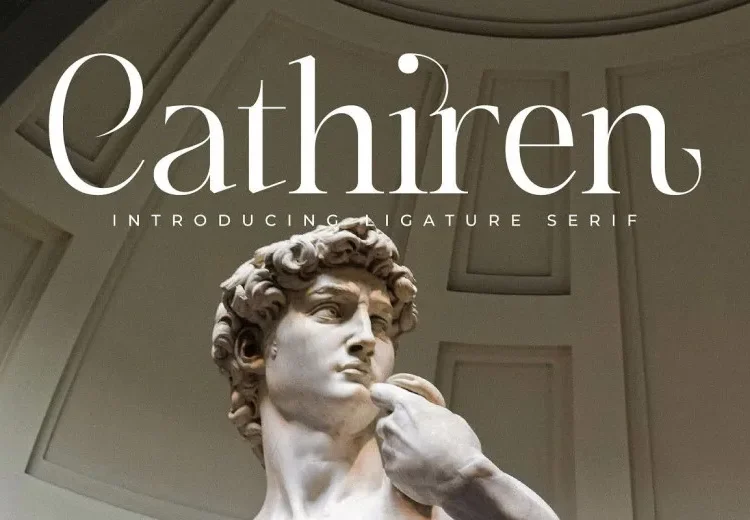
Cathiren Font
Cathiren is a stunning serif typeface that blends timeless elegance with a modern aesthetic, making it the perfect choice for a variety of design projects. Its clean lines and distinctive style make it ideal for logo designs, book or film titles, fashion branding, magazine lettering, and even inspirational quotes. Whether used in large or small-scale applications, Cathiren stands out with sophistication and grace.
This versatile typeface is designed to bring a touch of refinement to any project, effortlessly balancing classic charm with contemporary appeal. Whether you’re working on a high-end fashion campaign or creating standout content for print or digital media, Cathiren is the font that will elevate your design.